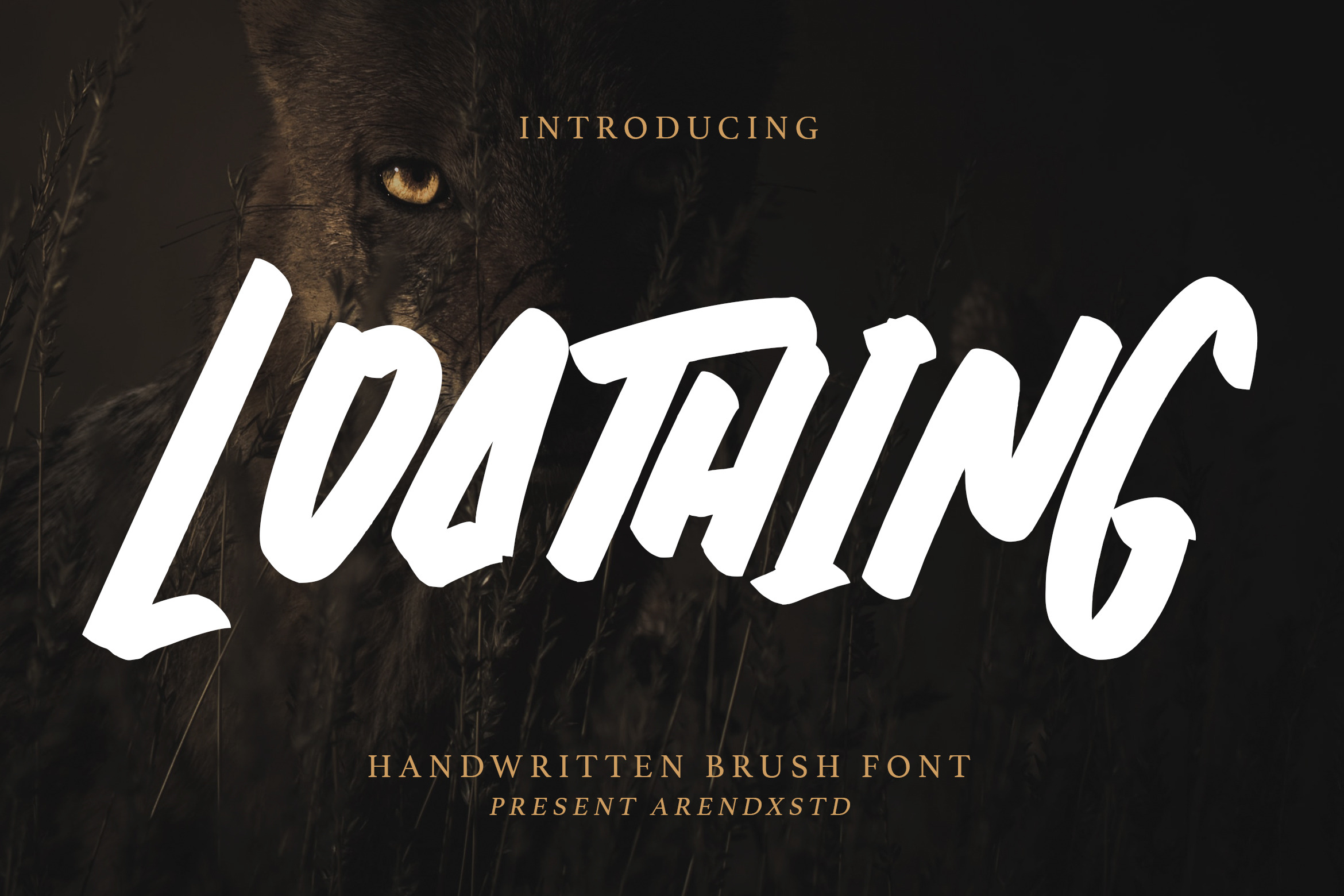
Loathing - Brush Font
Loathing is a bold Display Font with its distinctive character that can be easily implemented in your various design projects . Loathing came with opentype features such stylistic alternates, stylistic sets & ligatures good for logotype, poster, badge, book cover, tshirt design, packaging and any more.